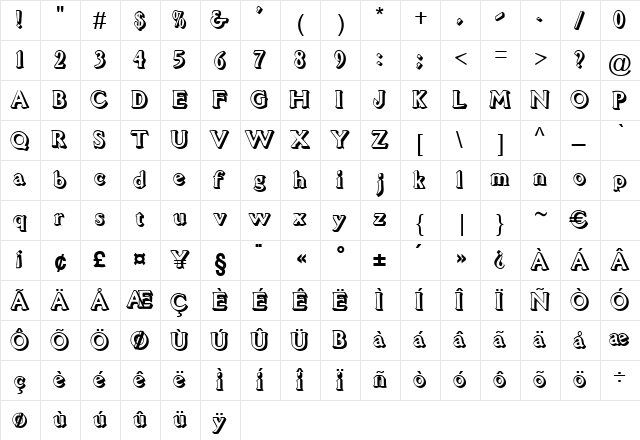
Triathlon Regular
Design Context for Triathlon Typeface
Triathlon offers clean, dependable letterforms without strong stylistic allegiance, making it a practical choice for designers who need flexibility.
Pro Tip: Pair Triathlon with a font of contrasting weight or personality to build a more expressive typographic hierarchy.